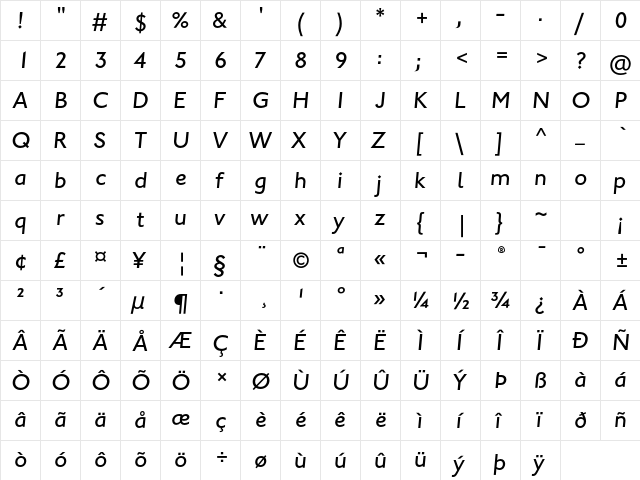
Johnston ITC Std Medium Italic
| Designer | Dave Farey and Richard Dawson |
Design Context for Johnston ITC Std Typeface
Johnston ITC Std is a composed and adaptable typeface that performs quietly and consistently across a wide range of design contexts. The dynamic lean of this cut emphasises speed and emphasis in any layout.
Pro Tip: Try Johnston ITC Std for annotation and caption copy alongside an upright companion — the contrast in angle creates a dynamic but ordered typographic system.